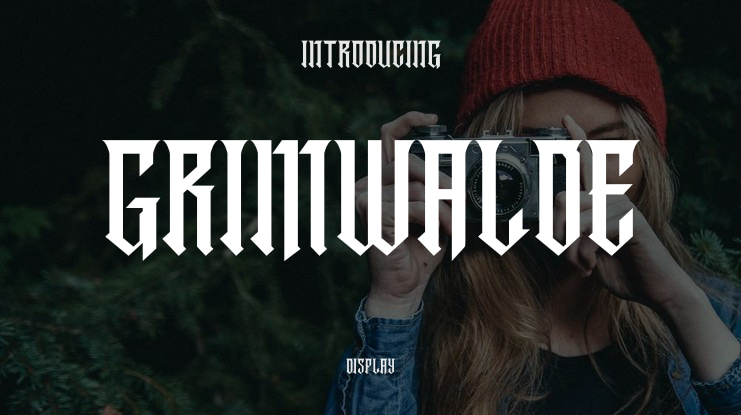
Grimwalde Font
Grimvalde is a gothic blackletter display font featuring bold strokes, medieval-inspired serifs, and tribal accents. This demo version is available for personal use only—any commercial use is strictly prohibited without a proper license.
Perfect for trying out bold gothic aesthetics in personal projects, the demo includes uppercase letters only and does not include the full glyph set.